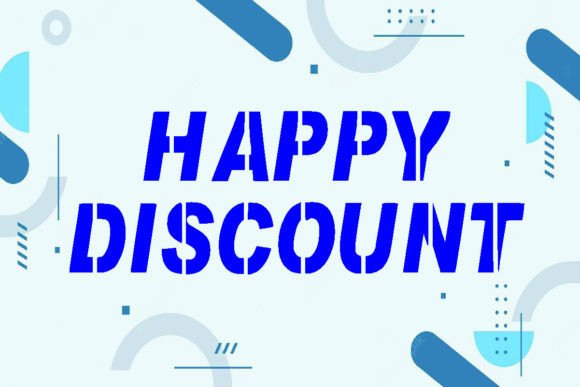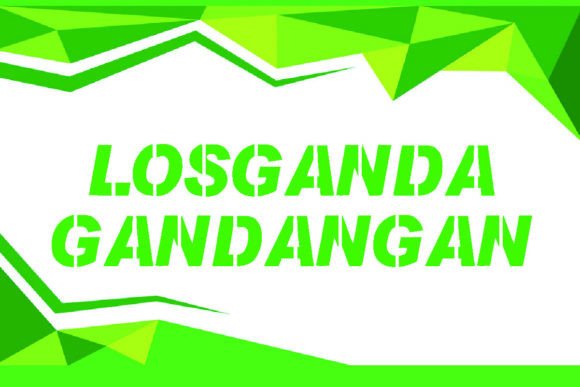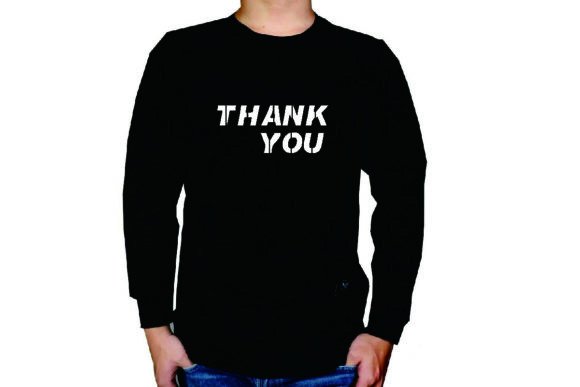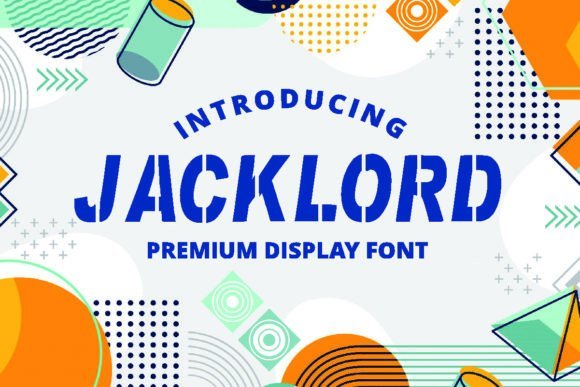
Introduction to Jacklord Font
Jacklord is a straight curved-style display font that symbolizes power and speed.
You can use it for box movie themes, logos, T-shirts, backgrounds, and more Add this font to your favorite creative ideas, and see how they come to life.